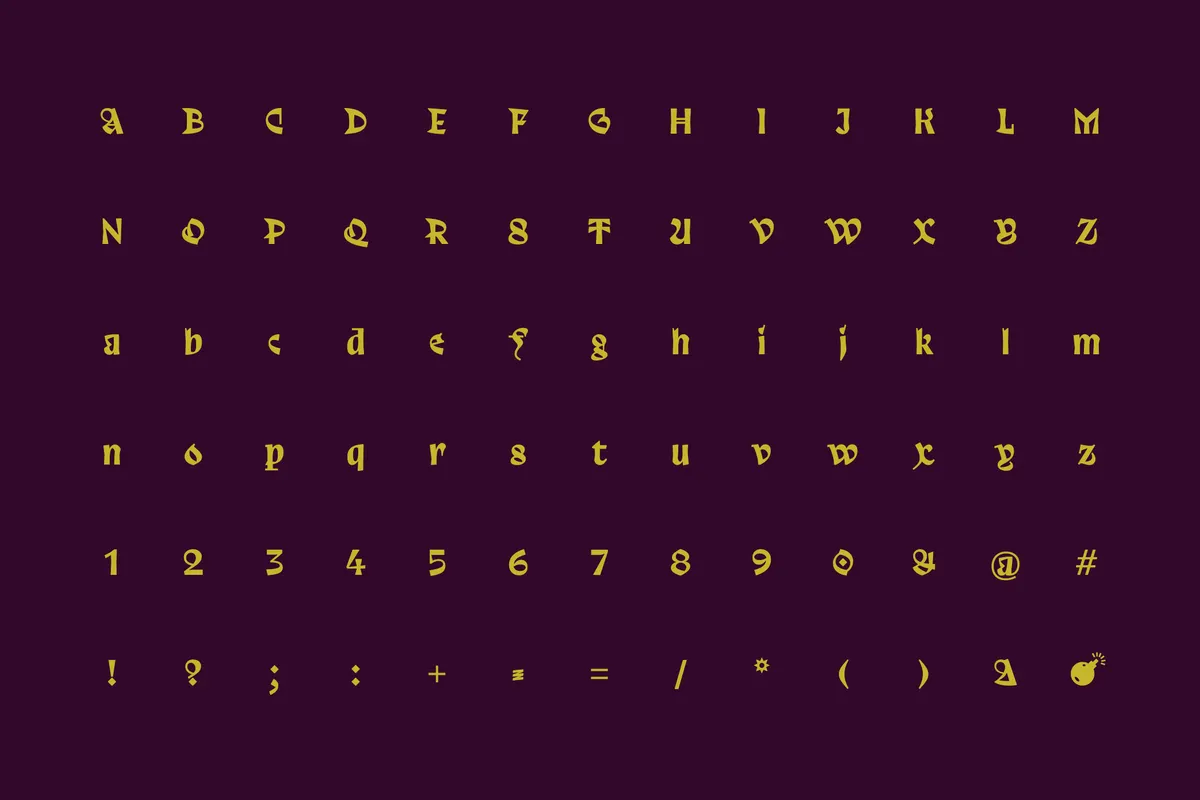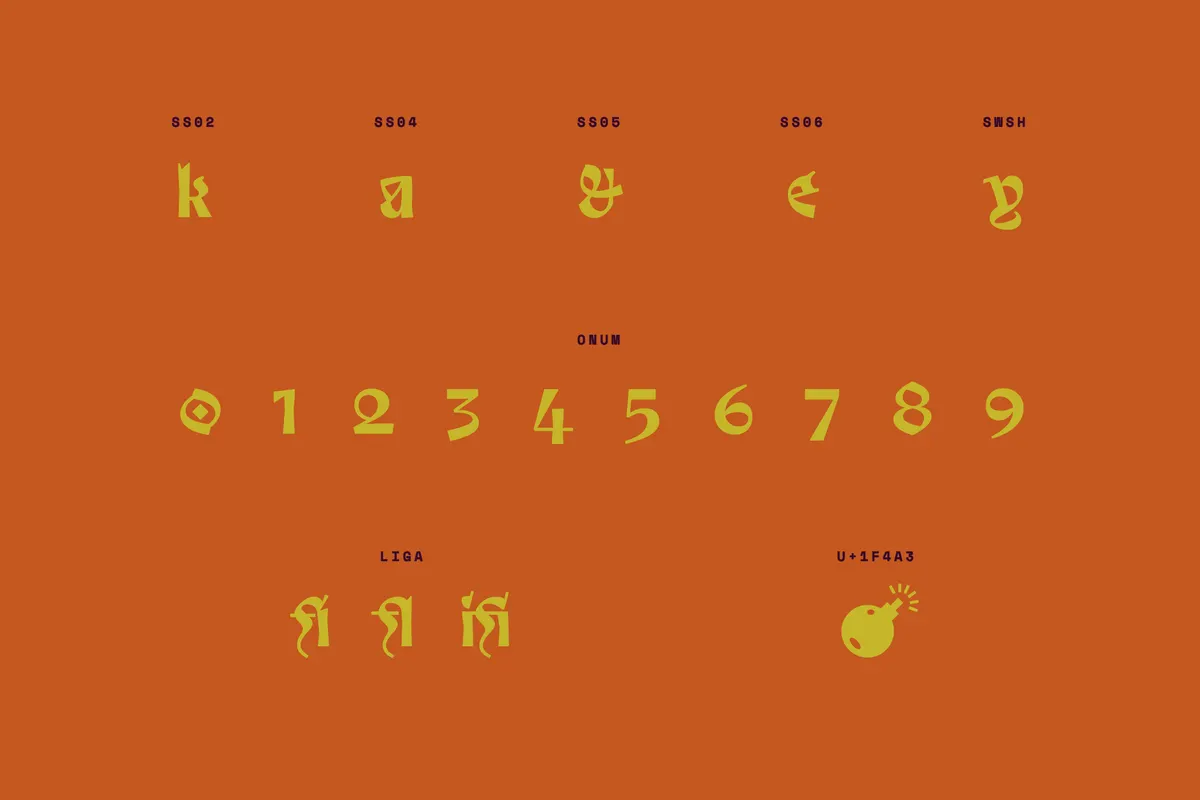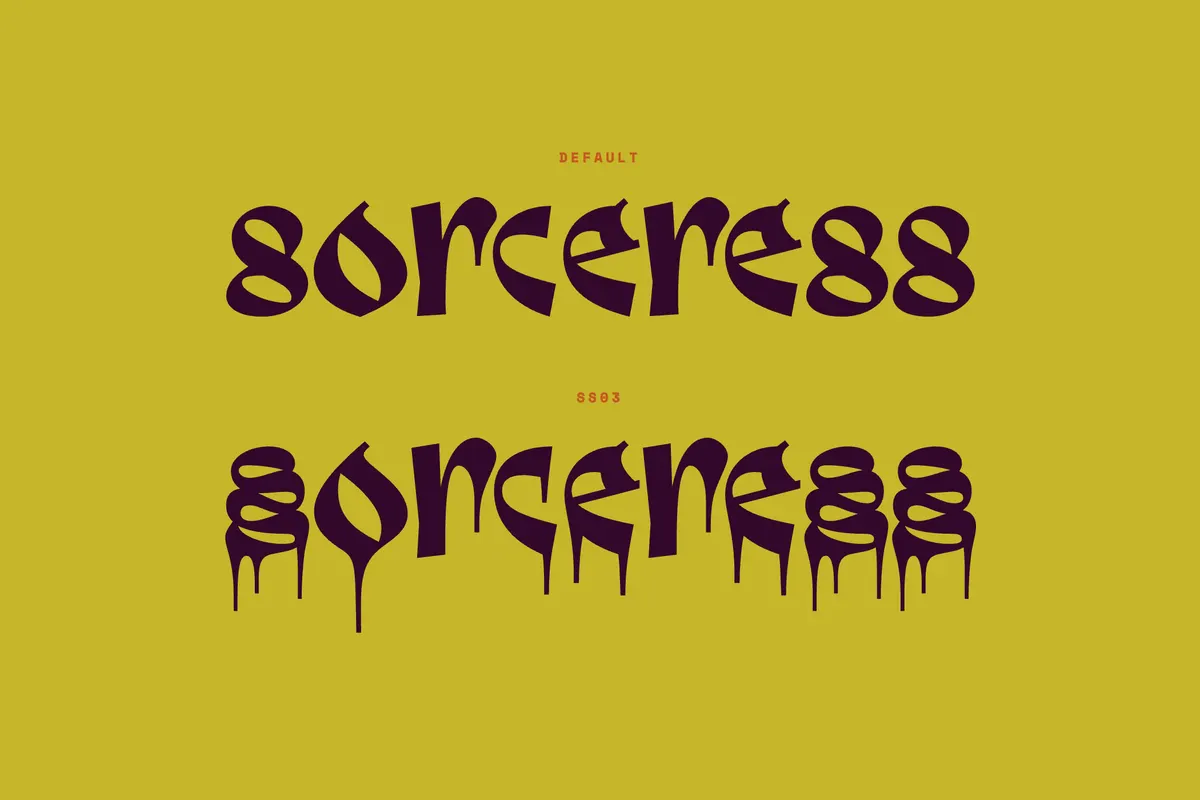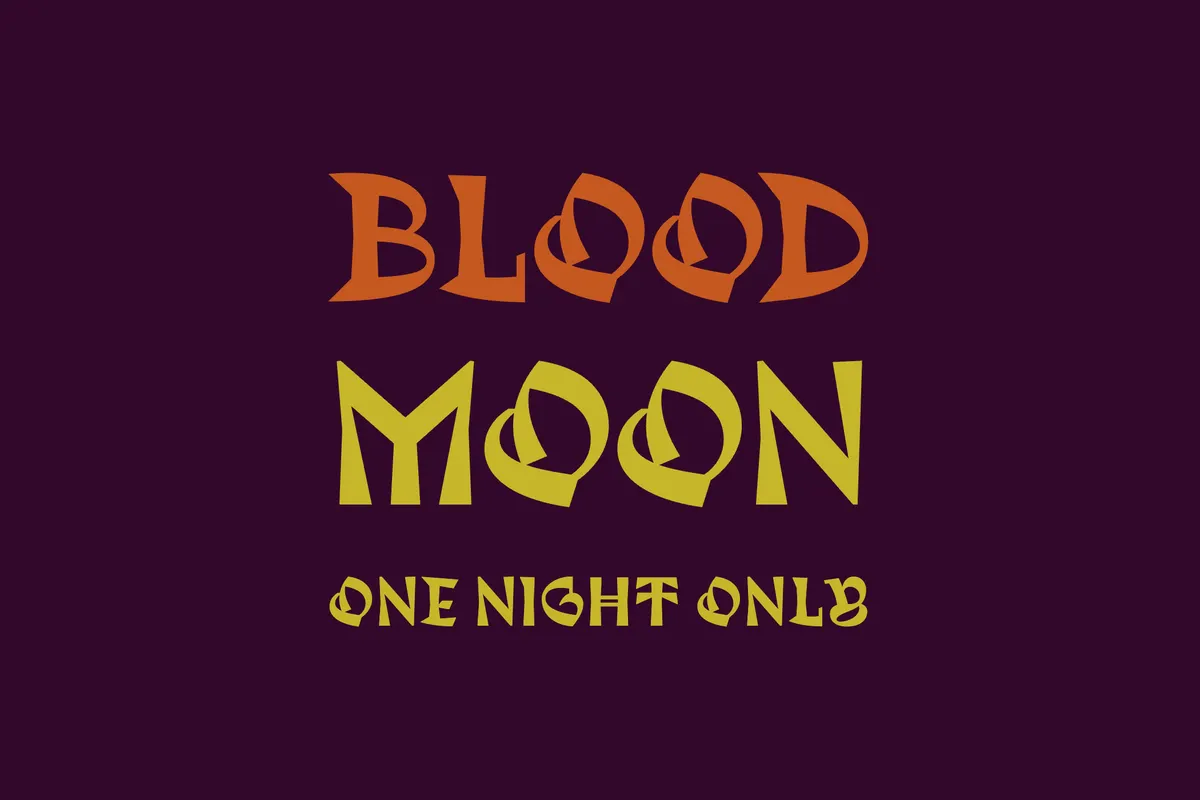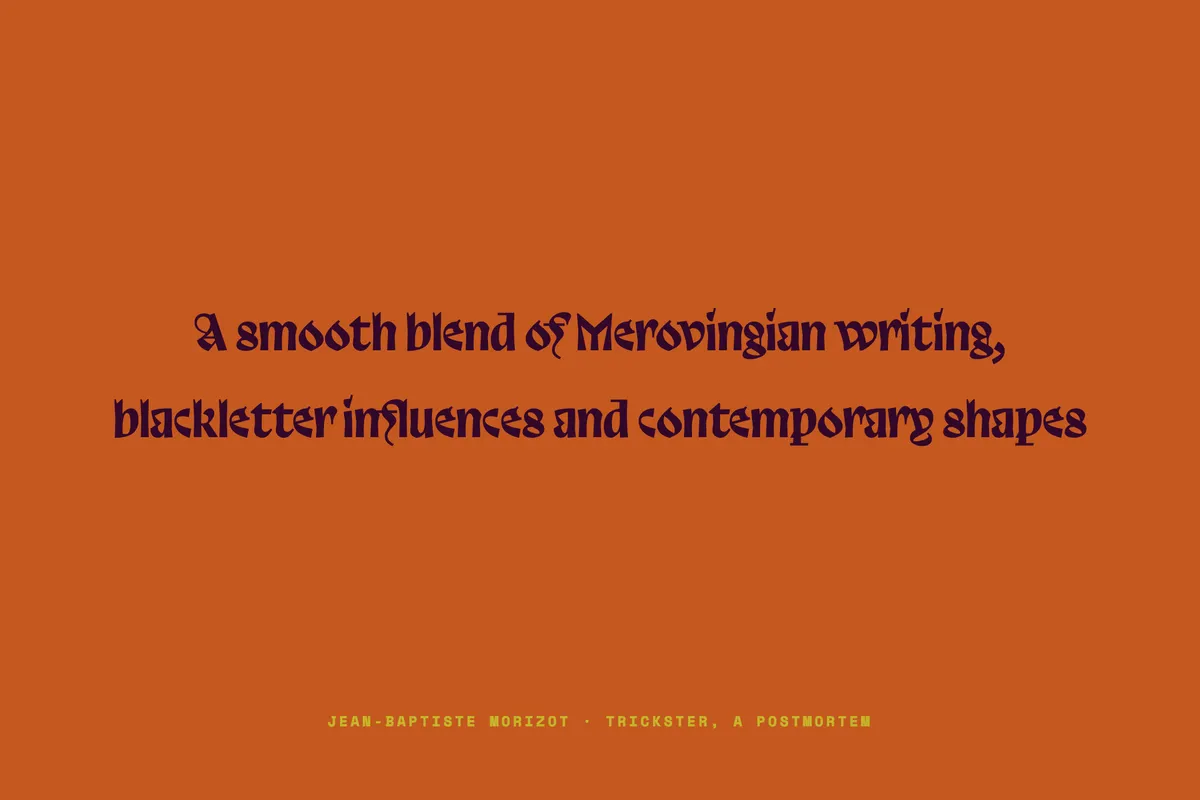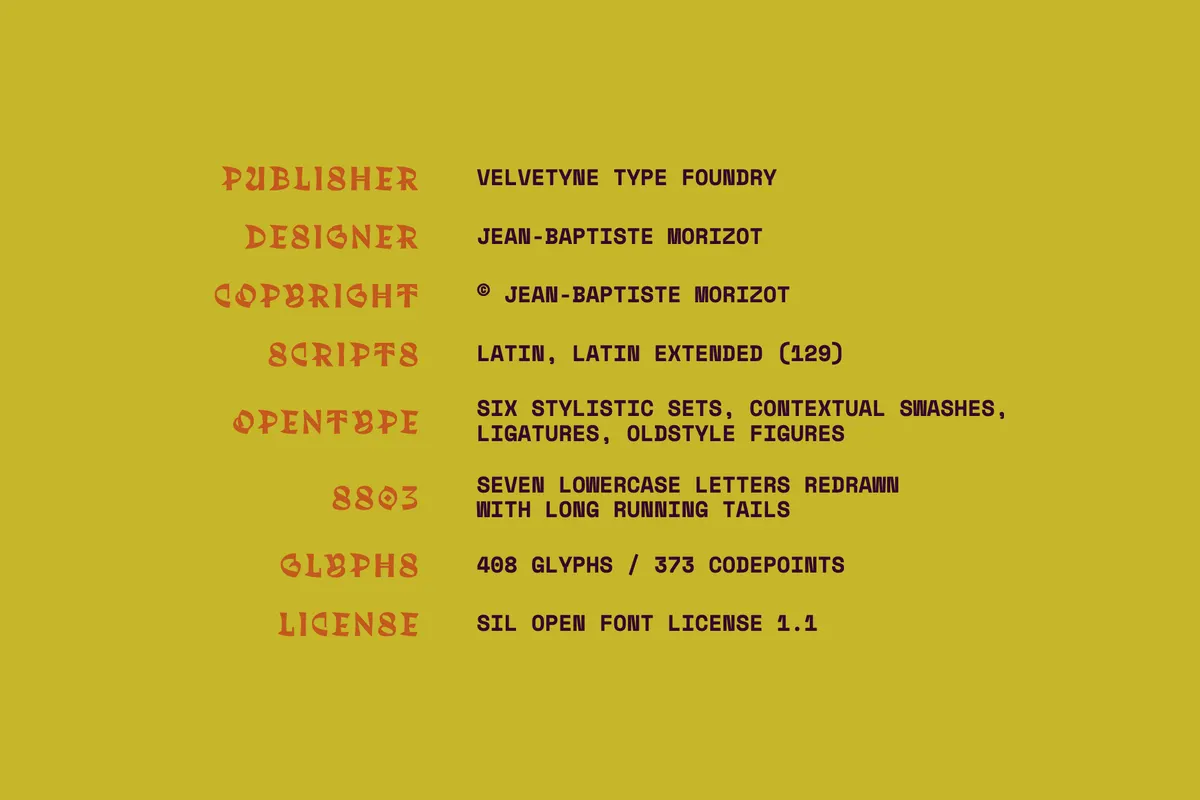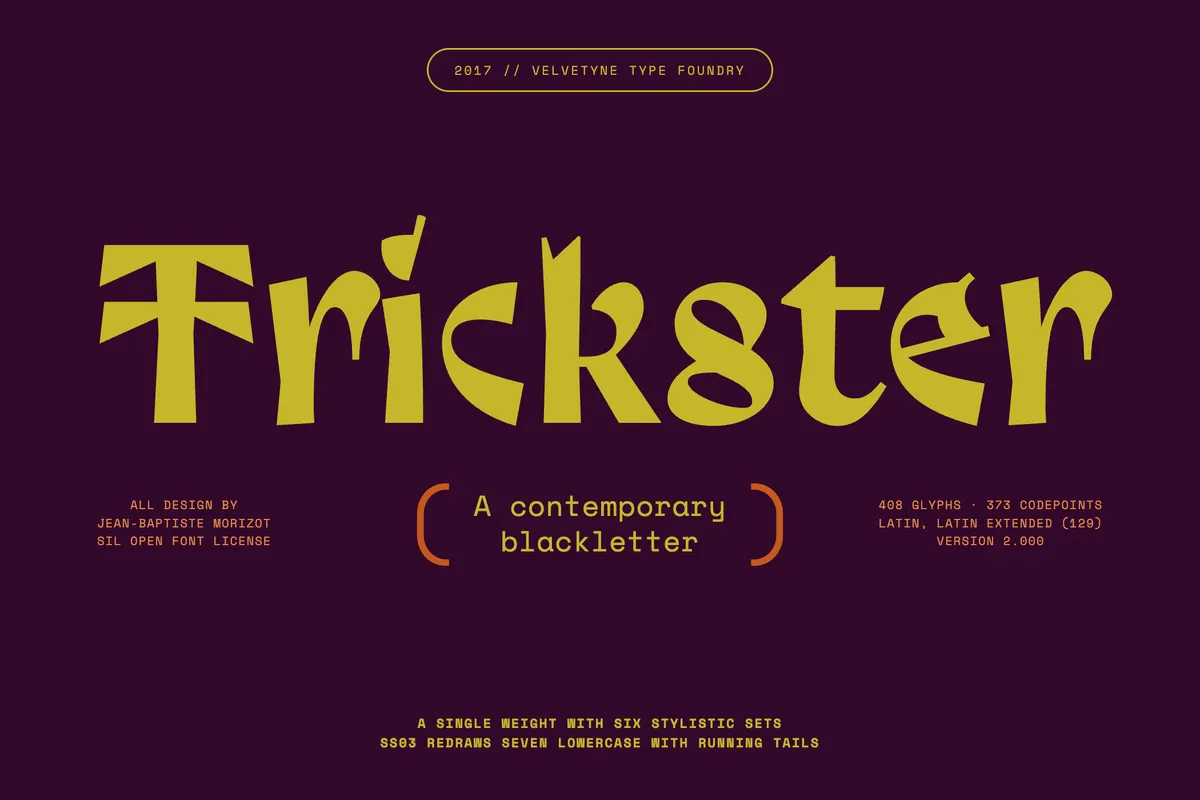
Trickster - Free Dripping Blackletter Font
Trickster carries broken stems and loopy half-calligraphic curves that Jean-Baptiste Morizot describes as a blackletter for the 21st century rather than a return to one. Its third stylistic set replaces seven lowercase letters with long dripping tails, and a lit bomb sits in the character set next to the swashes and old-style figures.
It works for gig posters, horror film titles, metal and punk album covers, zine mastheads, tattoo graphics, apparel prints, game logos, festival identities, and editorial openers.
- uppercase and lowercase letters;
- numbers, old-style figures, punctuation, and symbols;
- six stylistic sets, including a dripping-blood set of seven lowercase alternates;
- swash forms, contextual swashes, and alternate a, k, S, and ampersand;
- a lit bomb glyph at U+1F4A3;